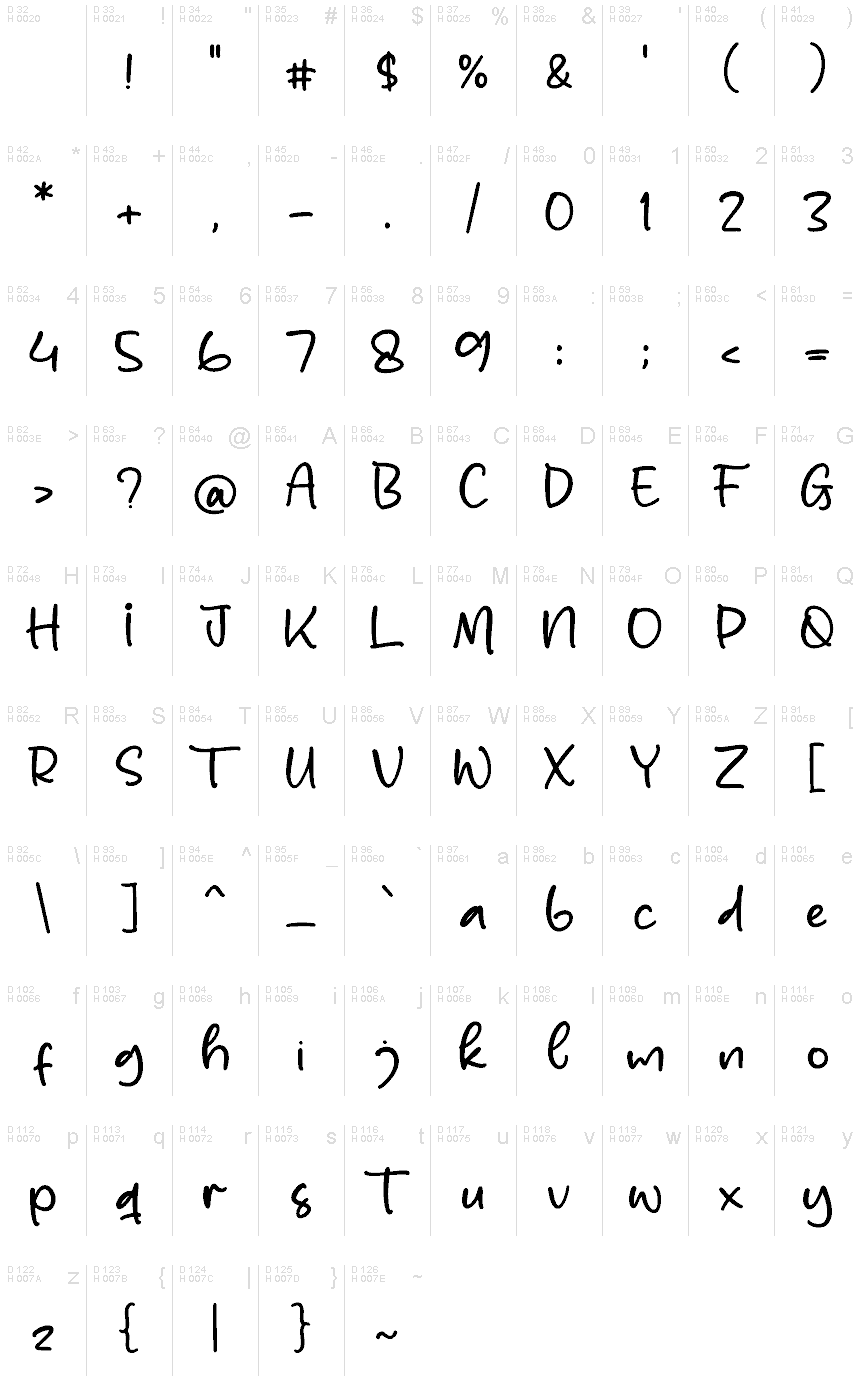
Hugshine Growter
Hugshine Growter font by Perspectype Studio - Letterena.com has a casual vibe and an organic flow that feels friendly and playful. It provides a stand-out style characterized by both modernity and a natural look which is often hard to achieve. Each line and curve of this handwritten font feels personal as if though it were written on paper with pen or marker.